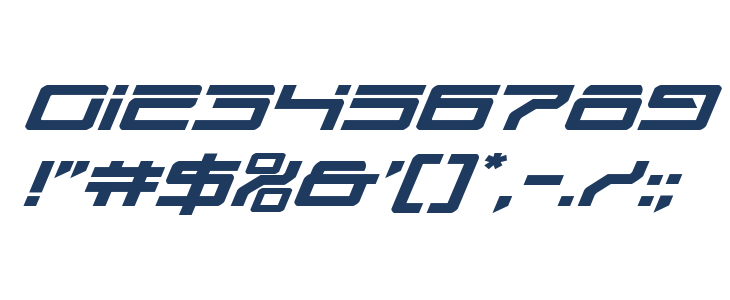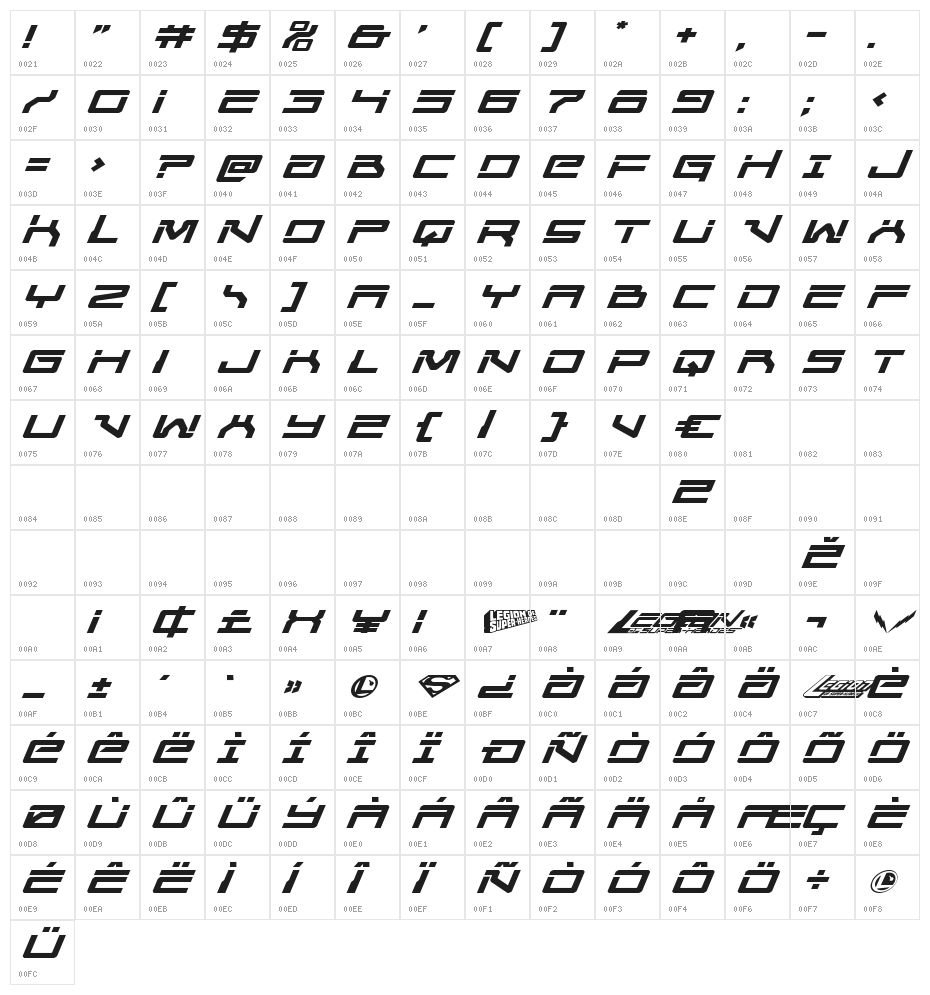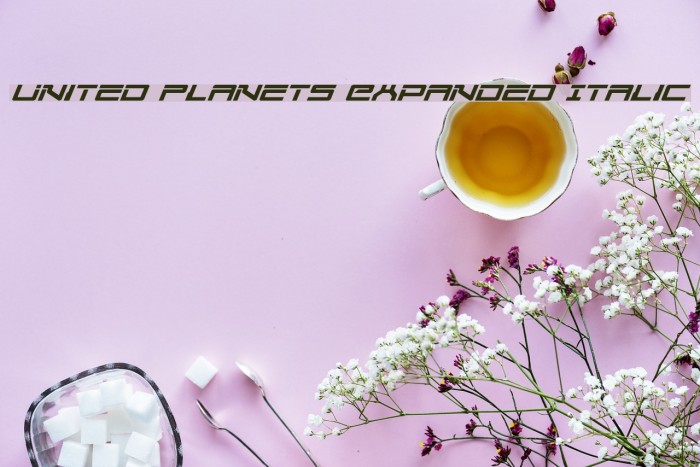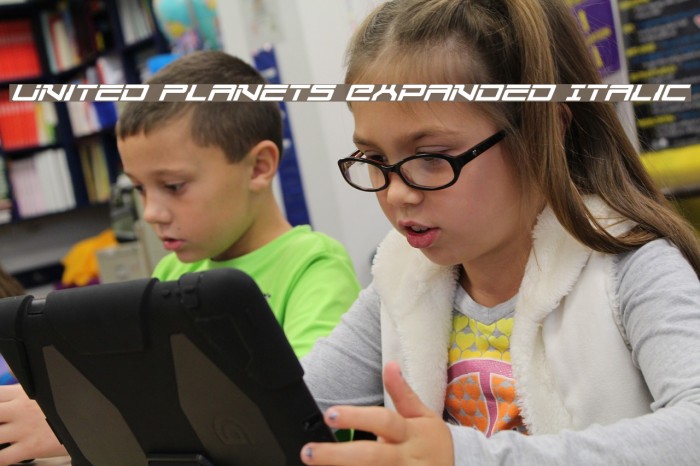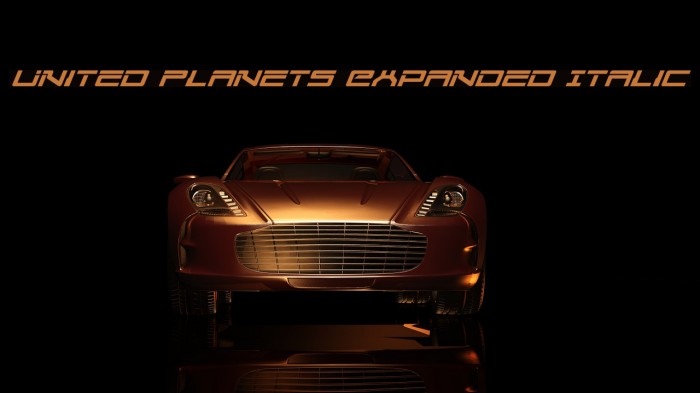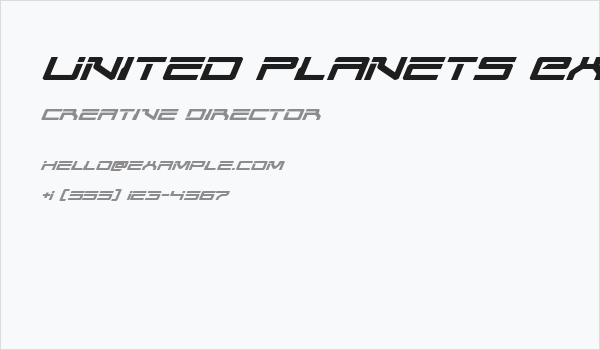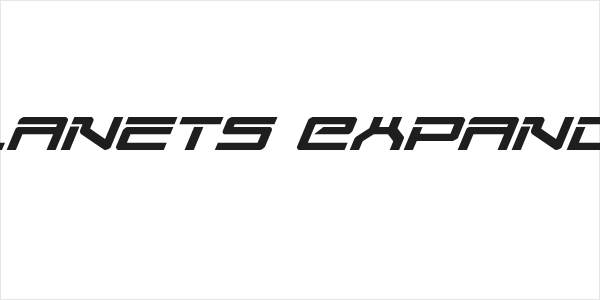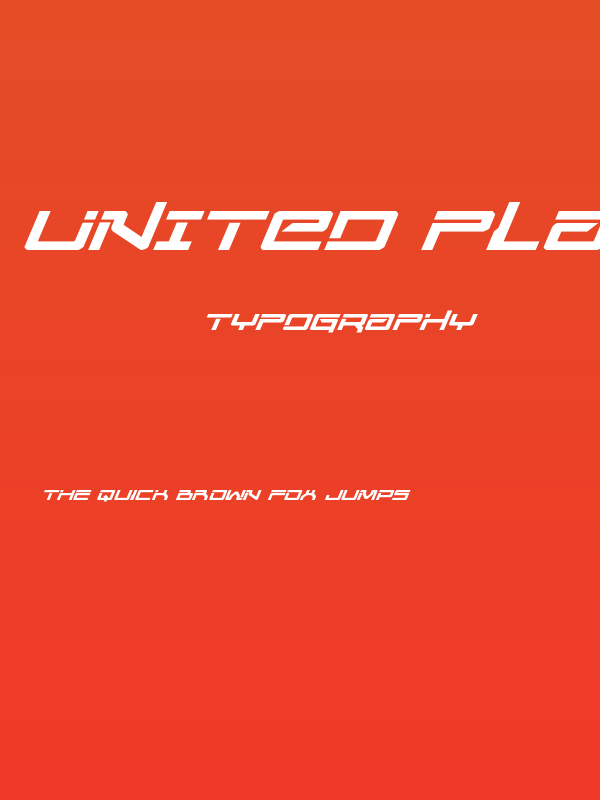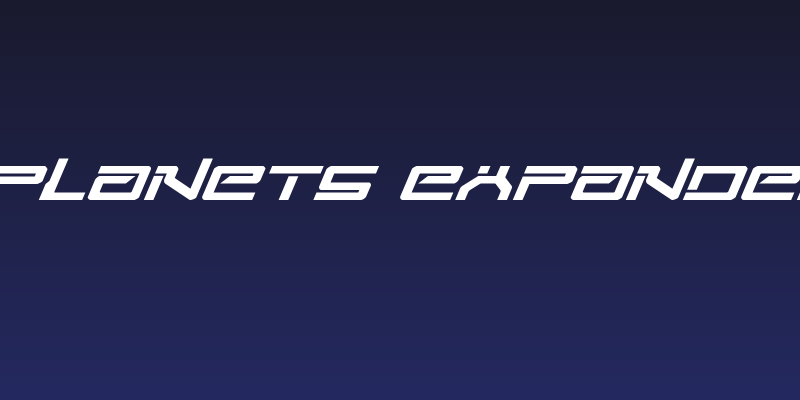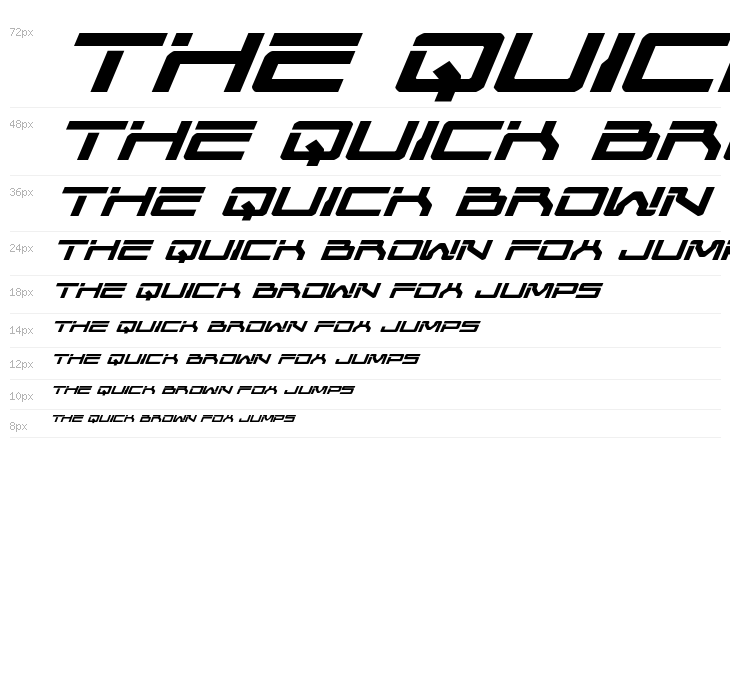
United Planets Expanded Italic Font
United Planets Expanded Italic Description
This font features a futuristic and angular design with a distinctly italicized style. The characters are expanded, giving them a wide appearance, which enhances their bold and dynamic look. The strokes are consistent in thickness, providing a uniform and sleek appearance. The geometric shapes and sharp edges contribute to a modern and tech-inspired aesthetic. The font maintains a consistent slant across all characters, emphasizing its italic nature. The numerals and special characters are designed to match the angular and expanded style of the alphabet, ensuring a cohesive look throughout.
| Proposed Projects | Ideal for sci-fi themed projects, tech branding, video game titles, and futuristic posters. |